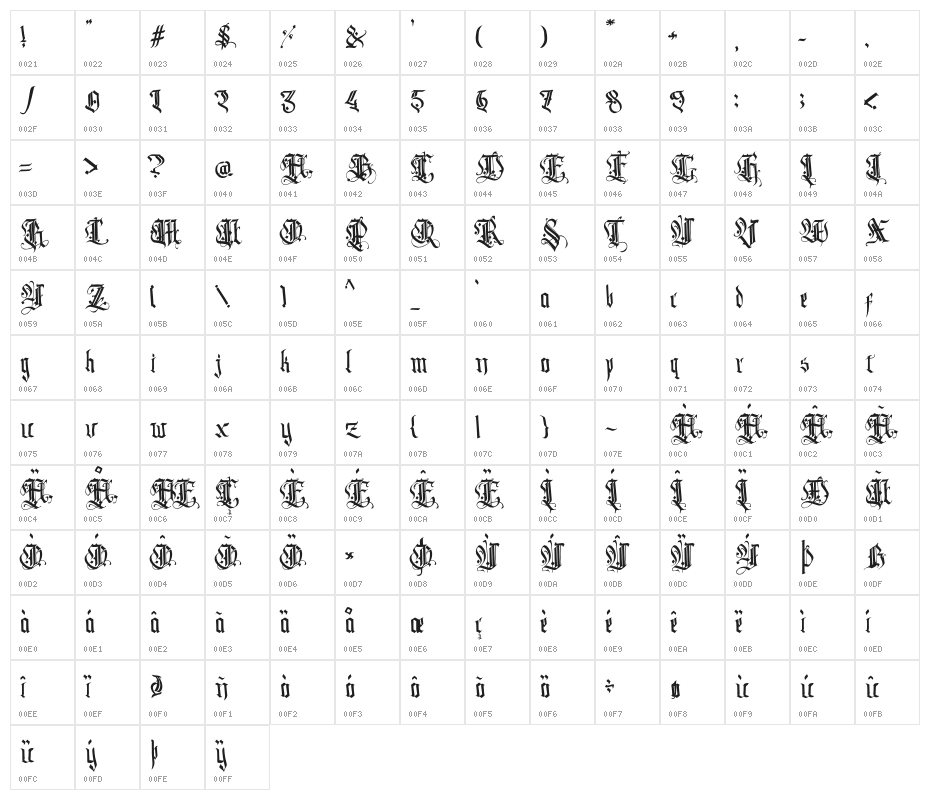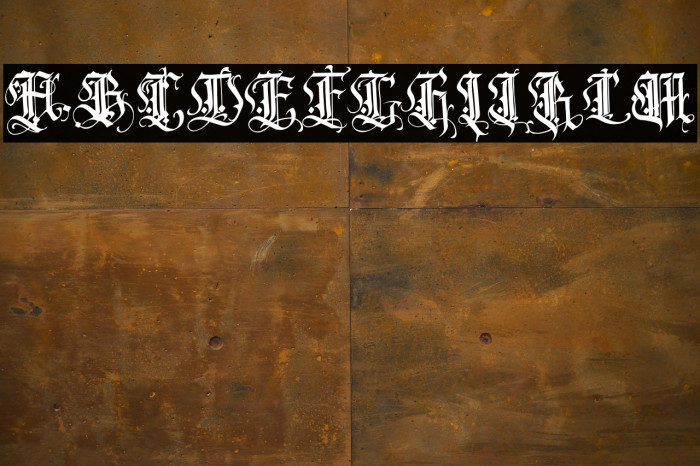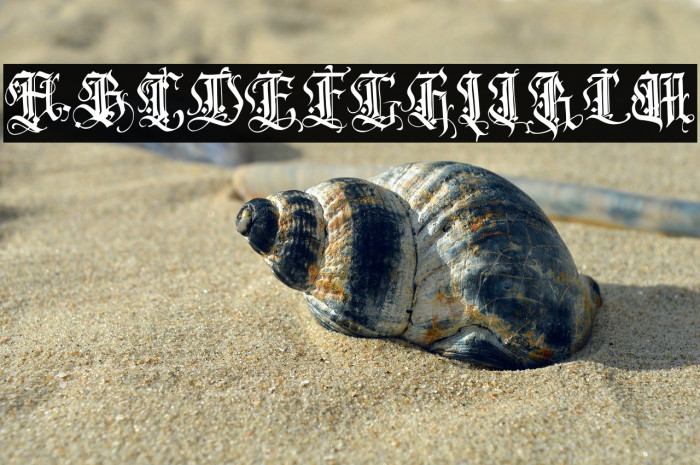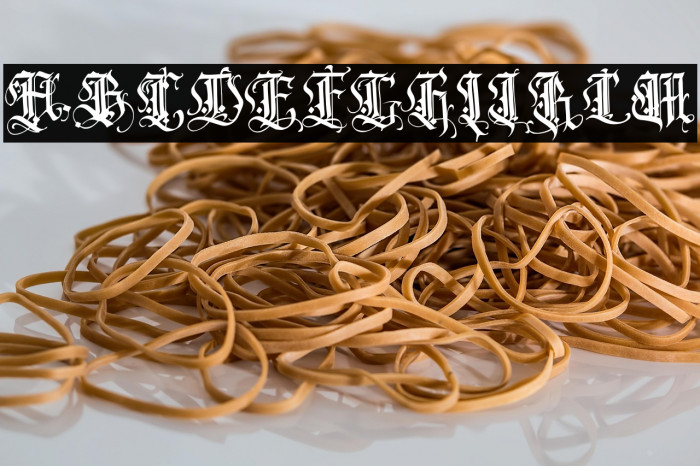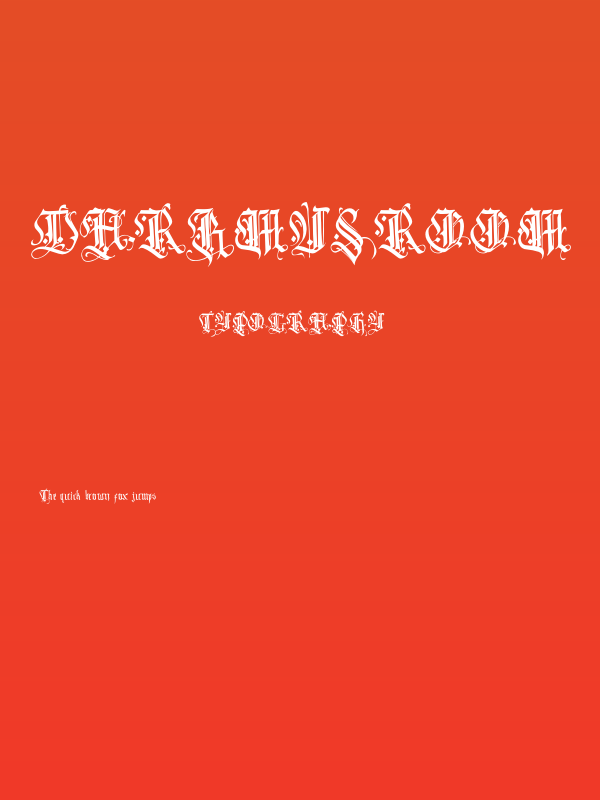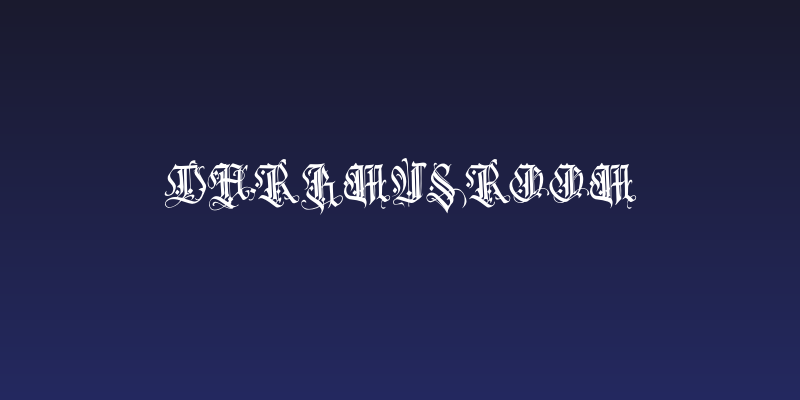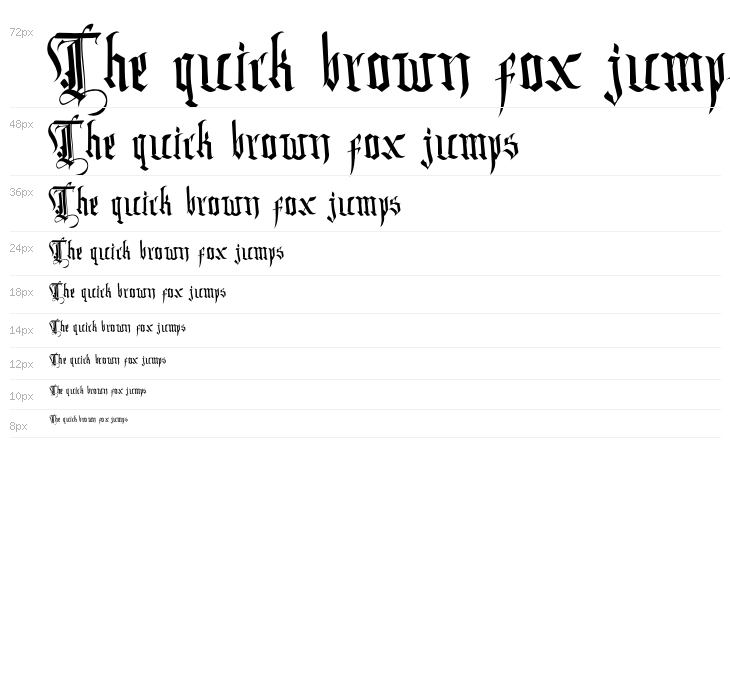
DarkMusroom Font
DarkMusroom Description
This font features a traditional blackletter style with intricate and ornate details, reminiscent of medieval script. The uppercase letters are highly decorative, with elaborate flourishes and sharp angles, while the lowercase letters maintain a more streamlined yet still ornate appearance. The numbers and special characters follow the same stylistic cues, ensuring consistency across the font. The overall design is bold and dramatic, making it suitable for projects that require a historical or gothic aesthetic.
Proposed ProjectsIdeal for use in historical documents, gothic-themed designs, book covers, posters, and branding that requires a medieval or dramatic flair.